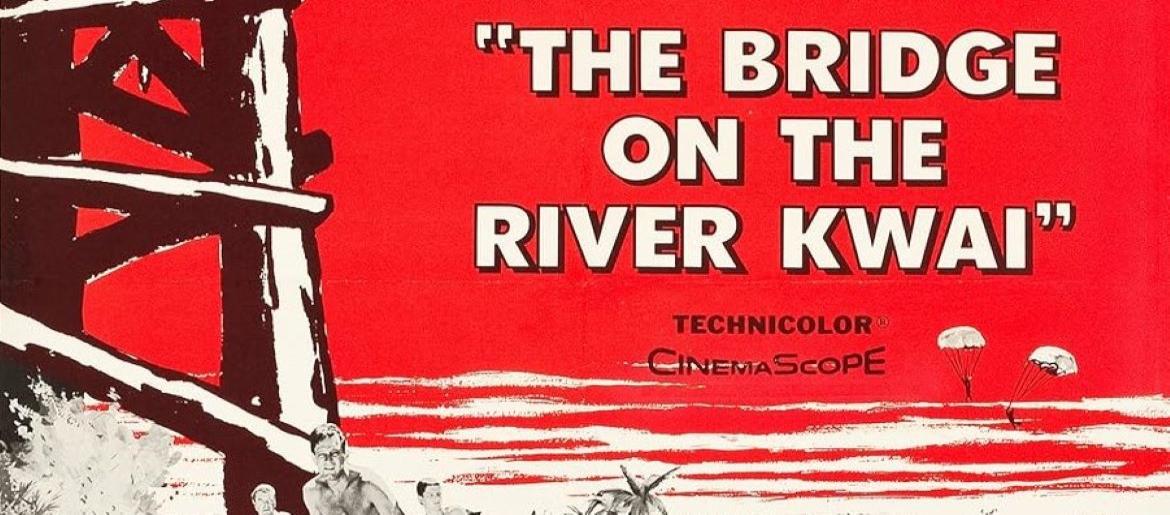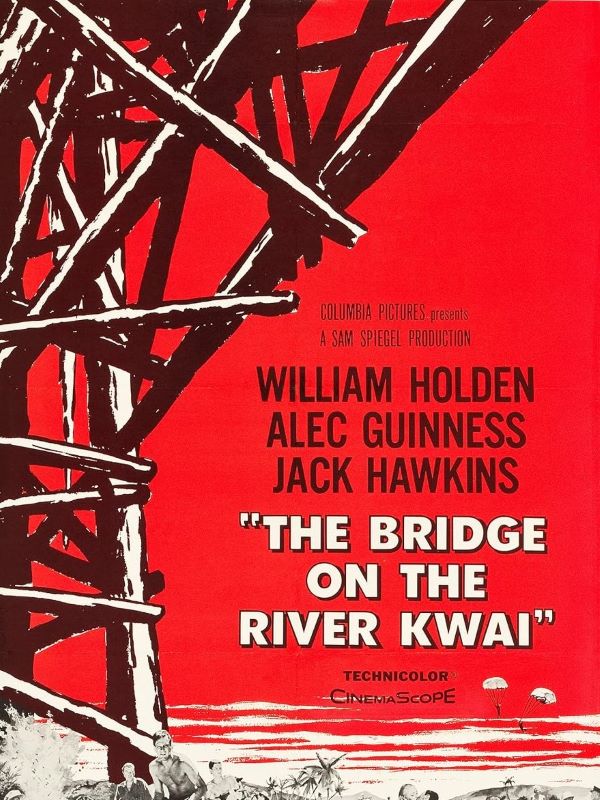
The Bridge on the River Kwai Font
What Font is Used in the The Bridge on the River Kwai Poster?
The Bridge on the River Kwai Font is based on Futura No. 2 Std Extra Bold, a classic geometric sans-serif typeface known for its strength and simplicity. The bold and structured lettering reflects the film’s serious tone and the monumental themes of endurance and duty. For designers looking to recreate the look, we’ve found a free alternative font that closely matches Futura No. 2 Std Extra Bold’s design and weight.
I think the Bridge on the River Kwai Font works perfectly because it captures the era and mood of the film. Its solid, no-nonsense letterforms echo the resilience and tension of the story, while the geometric precision gives it a timeless appeal. It’s the kind of typeface that commands respect—much like the film itself.